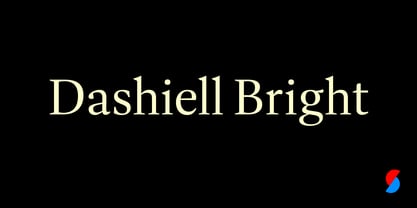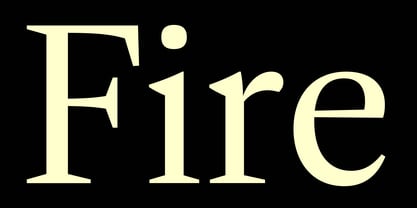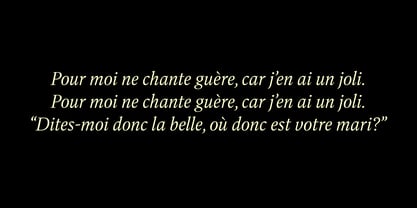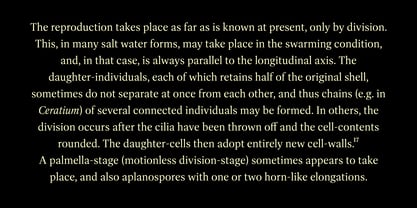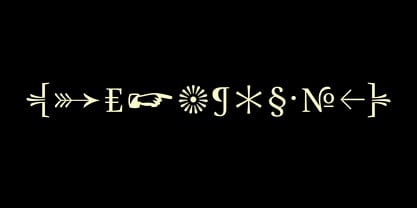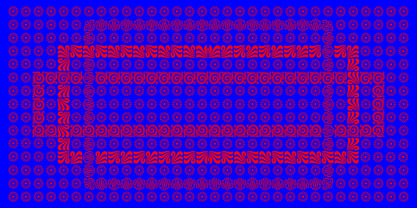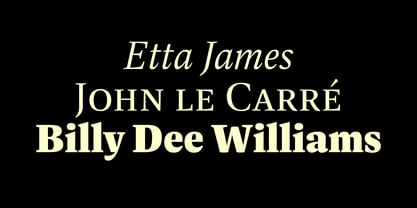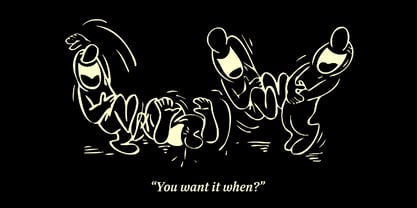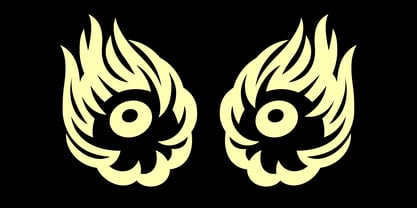
Dashiell Bright
The Dashiell Bright Font Family was designed by Max Phillips and published by Signal Type Foundry. Dashiell Bright contains 12 styles and family package options. More about this family
Dashiell Bright is particularly suited to printed books and magazines, where its crisply drawn forms hold the page nicely without being overbearing. While a touch more literary than its sister face Dashiell Text, it shares the same six weights, ample counters and x-height, and unbracketed wedge serifs. It supports over 140 languages and includes proportional and tabular lining and oldstyle figures, small caps, case-sensitive punctuation and delimiters, and a selection of borders and ornaments.